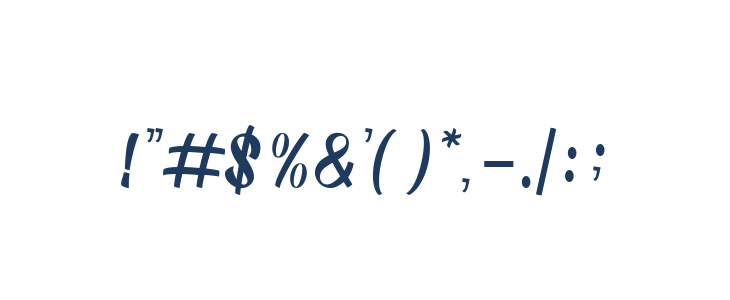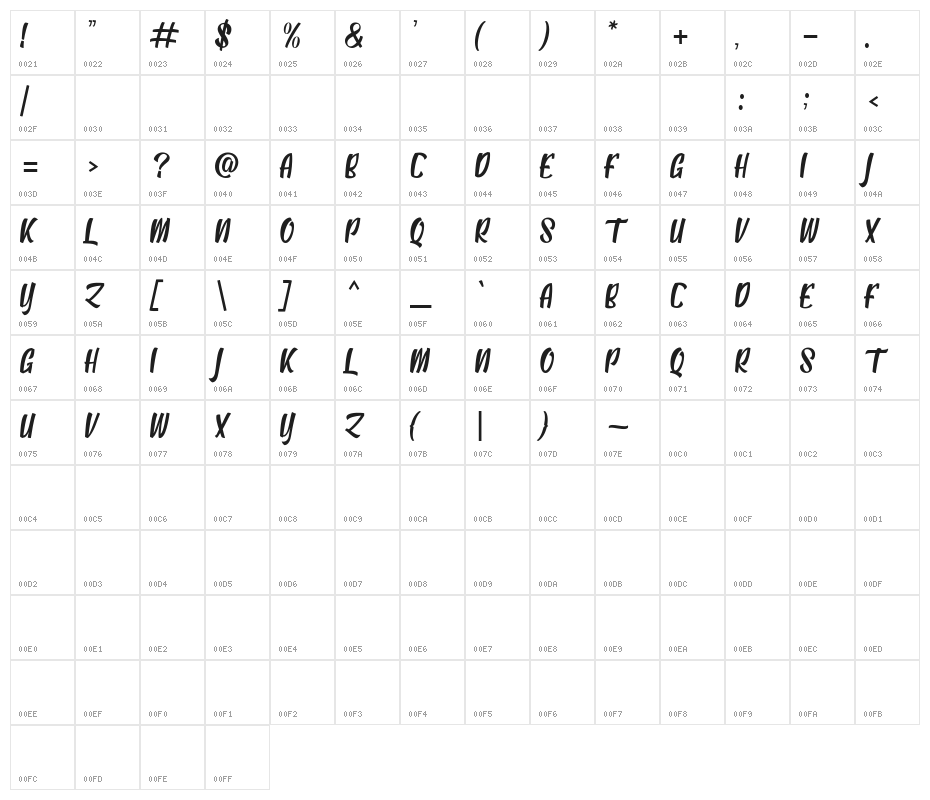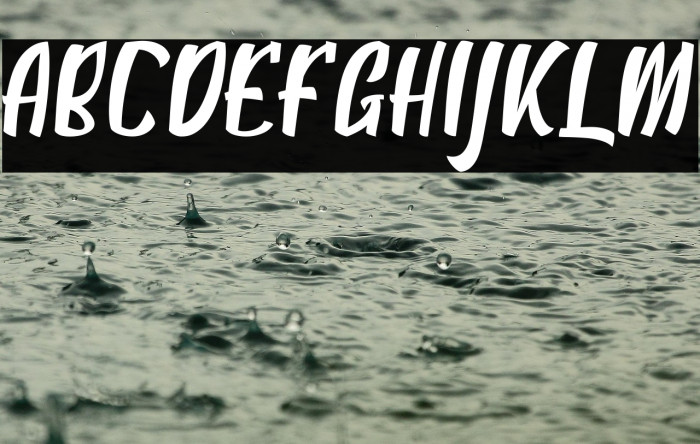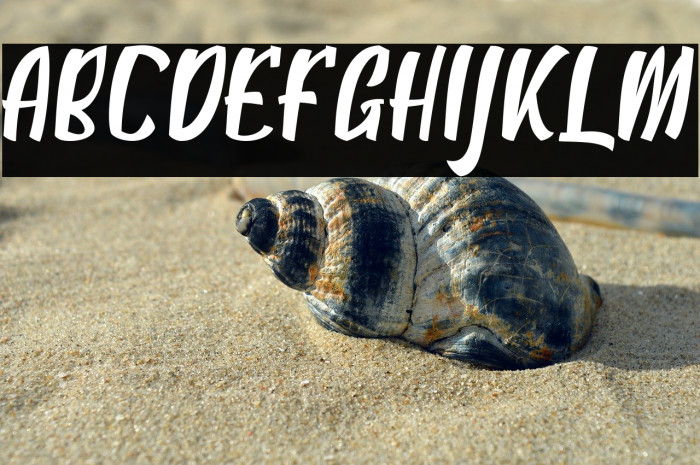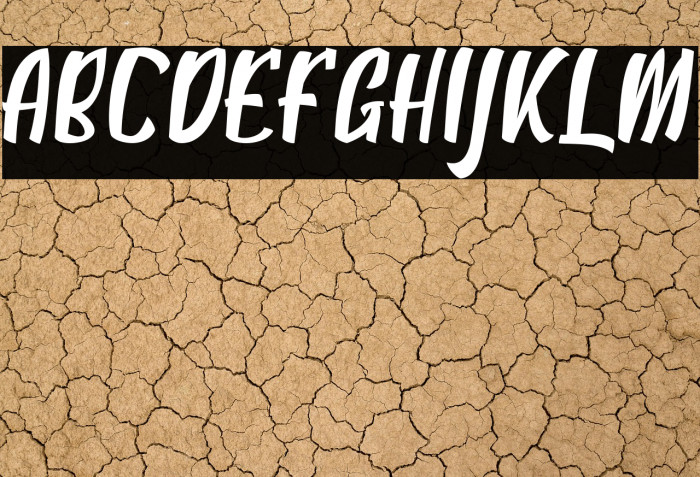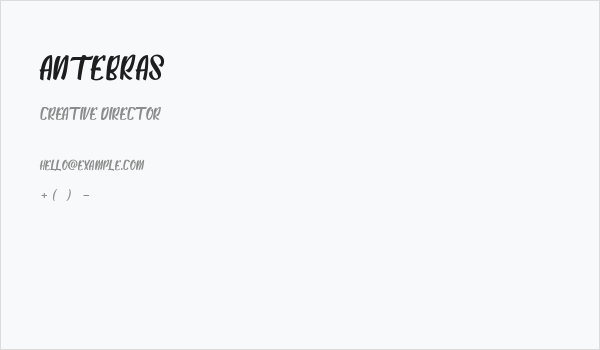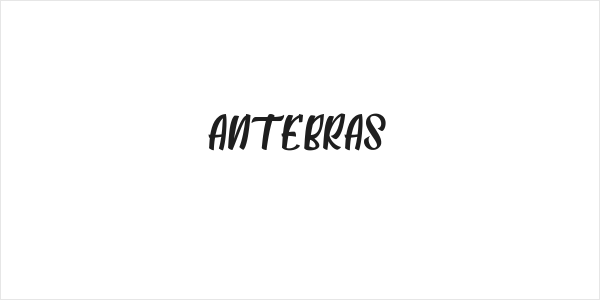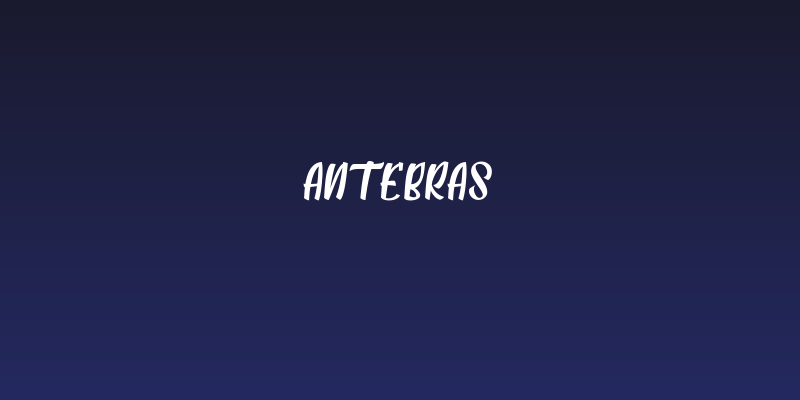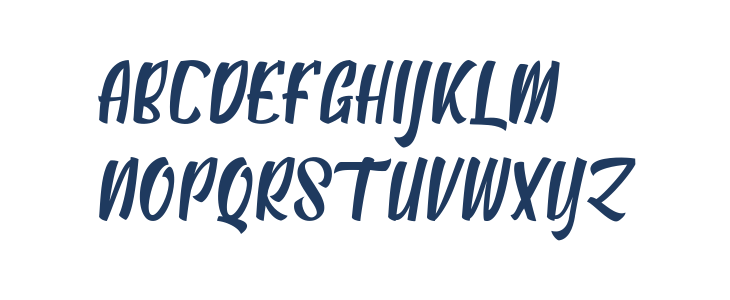
This font features a bold and dynamic script style with a strong presence. The letters are slightly slanted, giving it a sense of movement and energy. The strokes are thick and consistent, creating a bold appearance that stands out. The uppercase and lowercase letters maintain a cohesive style, with the uppercase being more pronounced. The special characters are designed to match the overall aesthetic, ensuring a uniform look across all text. This font is ideal for projects that require a touch of flair and personality.
| Proposed Projects | Ideal for branding, posters, headlines, and any design needing a bold, energetic touch. |